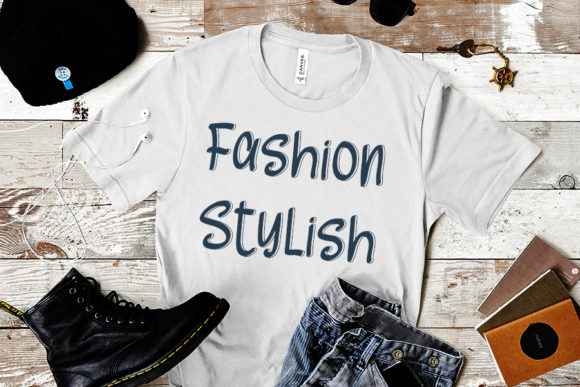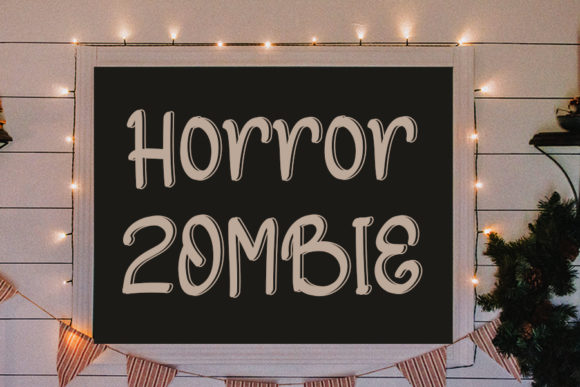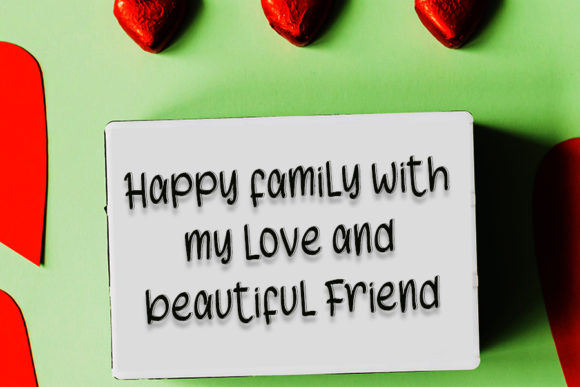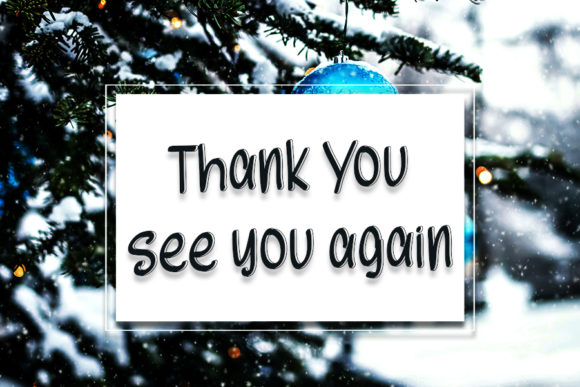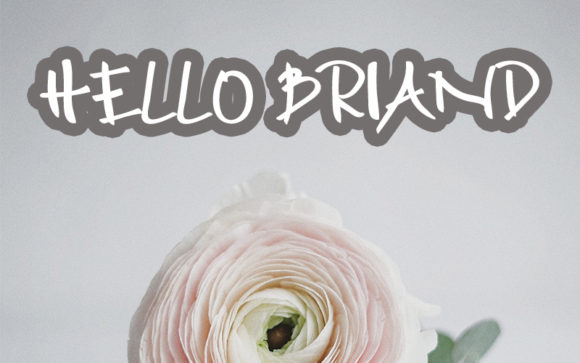
Black Friday Font
About Black Friday Font
Black Friday is a fun and friendly handwritten font. Add this beautiful font to each of your creative ideas and notice how it makes them stand out!